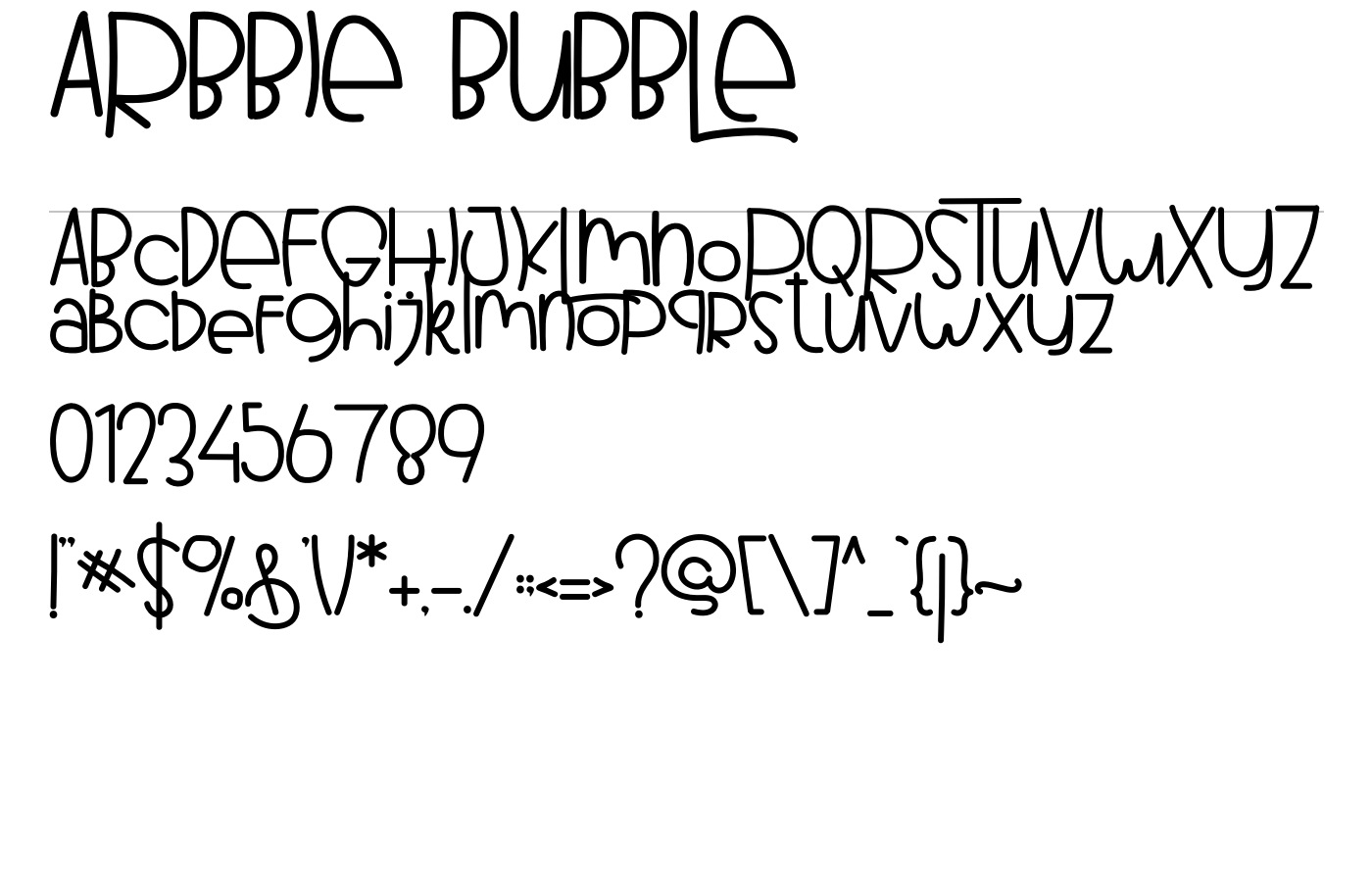
ARBBIE BUBBLE is a playful, hand-drawn sans serif font with tall, narrow letterforms and a light, whimsical feel. Its thin strokes and quirky curves give it a casual, fun personality perfect for children’s products, informal branding, and creative projects that want to convey friendliness and approachability. This font works best in headlines, logos, and any design needing a lighthearted, artistic touch.